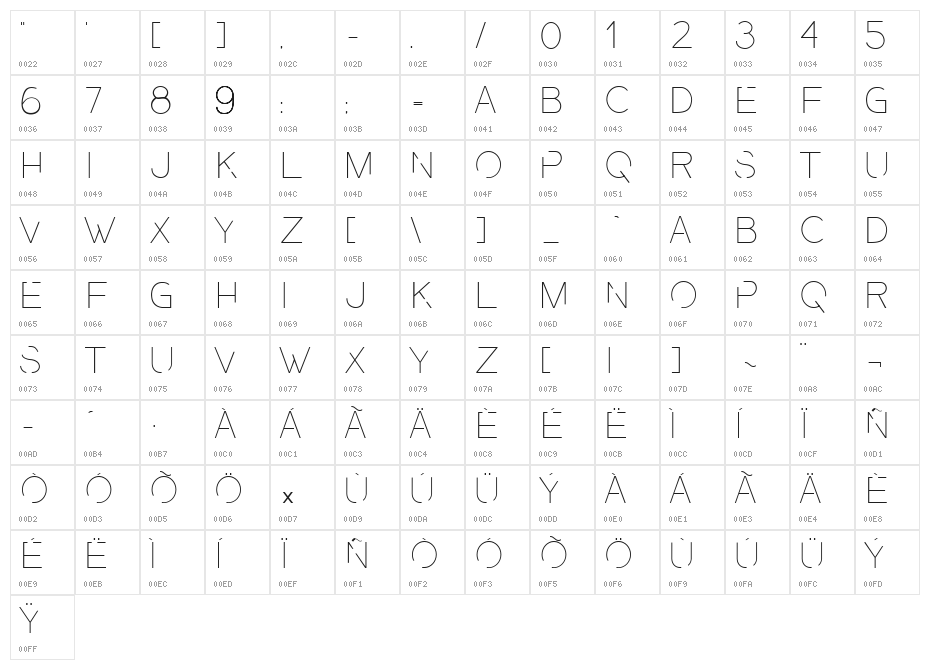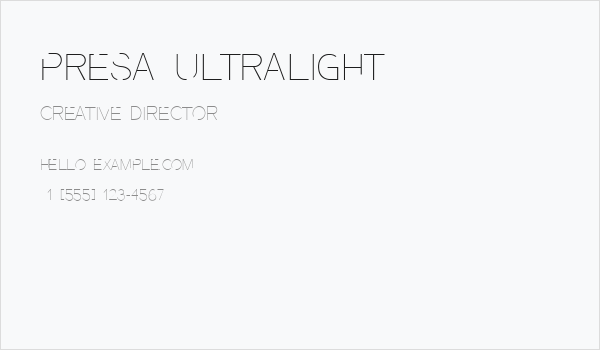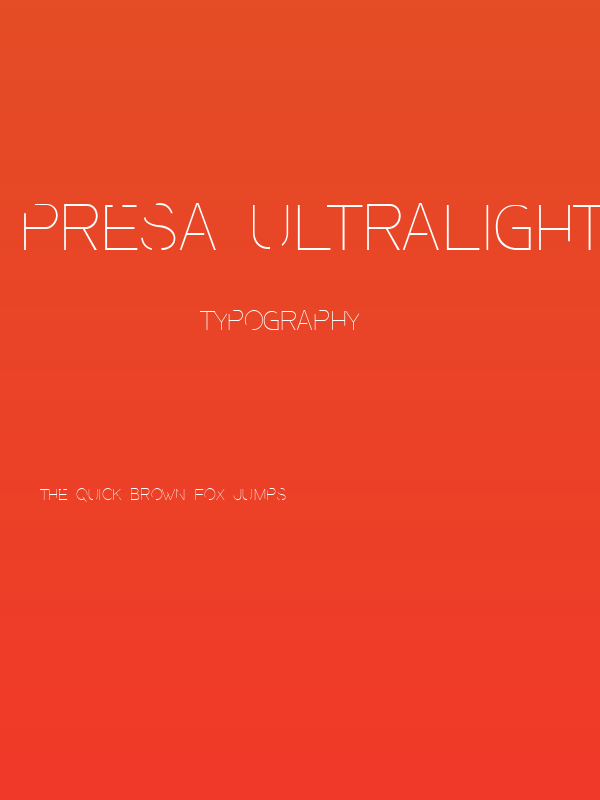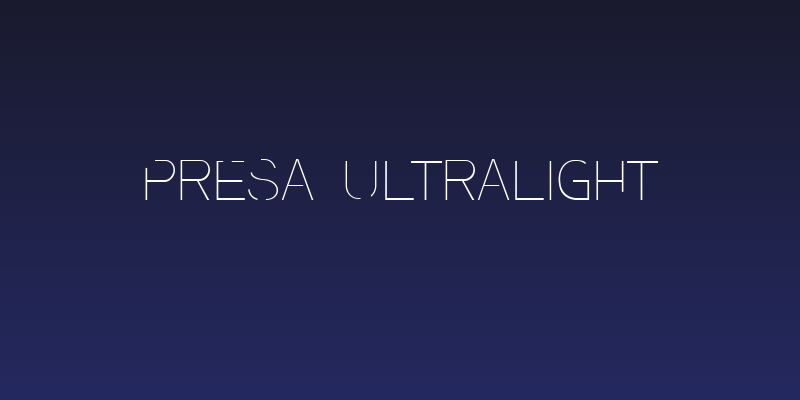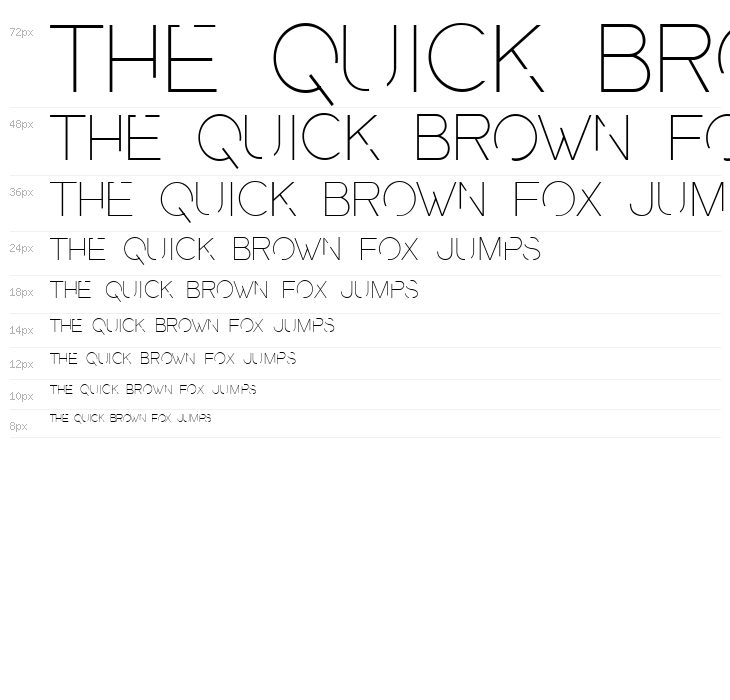
Presa Ultralight Font
Presa Ultralight Description
This font exhibits a sleek and modern design with ultra-light strokes, giving it an airy and minimalistic appearance. The characters are constructed with clean lines and geometric shapes, creating a sense of precision and clarity. The uppercase and lowercase letters maintain a consistent style, with a slight variation in the stroke endings that adds a touch of uniqueness. The numerals are equally refined, matching the overall aesthetic of the font. Special characters are included, maintaining the same thin and elegant structure. This font is ideal for projects that require a contemporary and sophisticated look.
Proposed ProjectsIdeal for branding, modern web design, luxury product packaging, and minimalist editorial layouts.